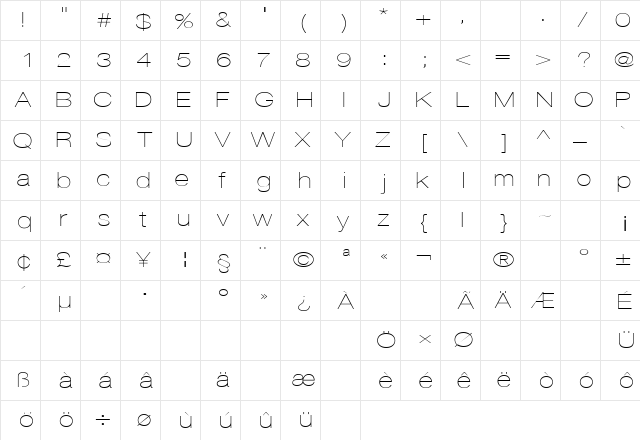
DISCO Regular
Design Context for DISCO Typeface
DISCO offers clean, dependable letterforms without strong stylistic allegiance, making it a practical choice for designers who need flexibility.